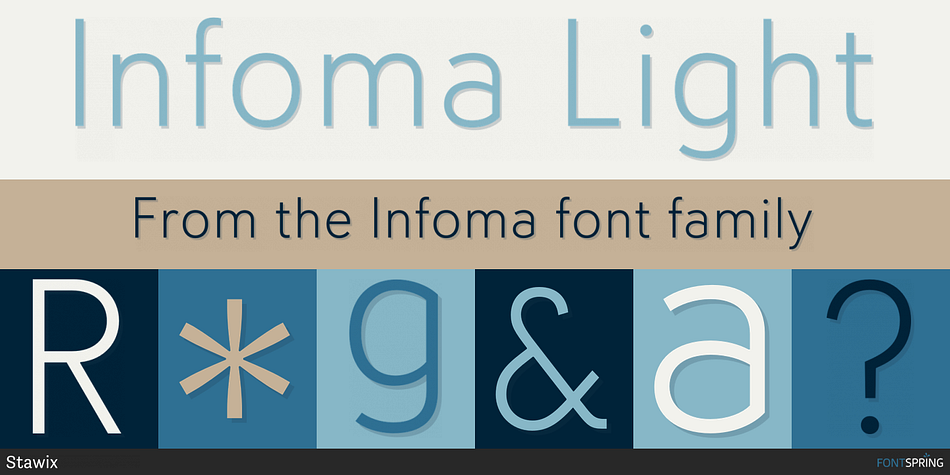
Infoma Light
Designed by Stawix Ruecha and Kawisara Vacharaprucks, Infoma is a sans serif font family. This typeface has eighteen styles and was published by Stawix.
Infoma is designed based on simplicity results in easy and comfortable usage which allows Infoma to perform flawlessly in every layouts. If meticulous, flexible, eye-pleasing and easy to use typeface you are looking for, we recommend Infoma.
Infoma consists of 18 styles from Line to Ultra, supporting many OpenType features, such as tabular numerals, inferiors & superiors, numerators & denominators, fractions, ligatures etc.